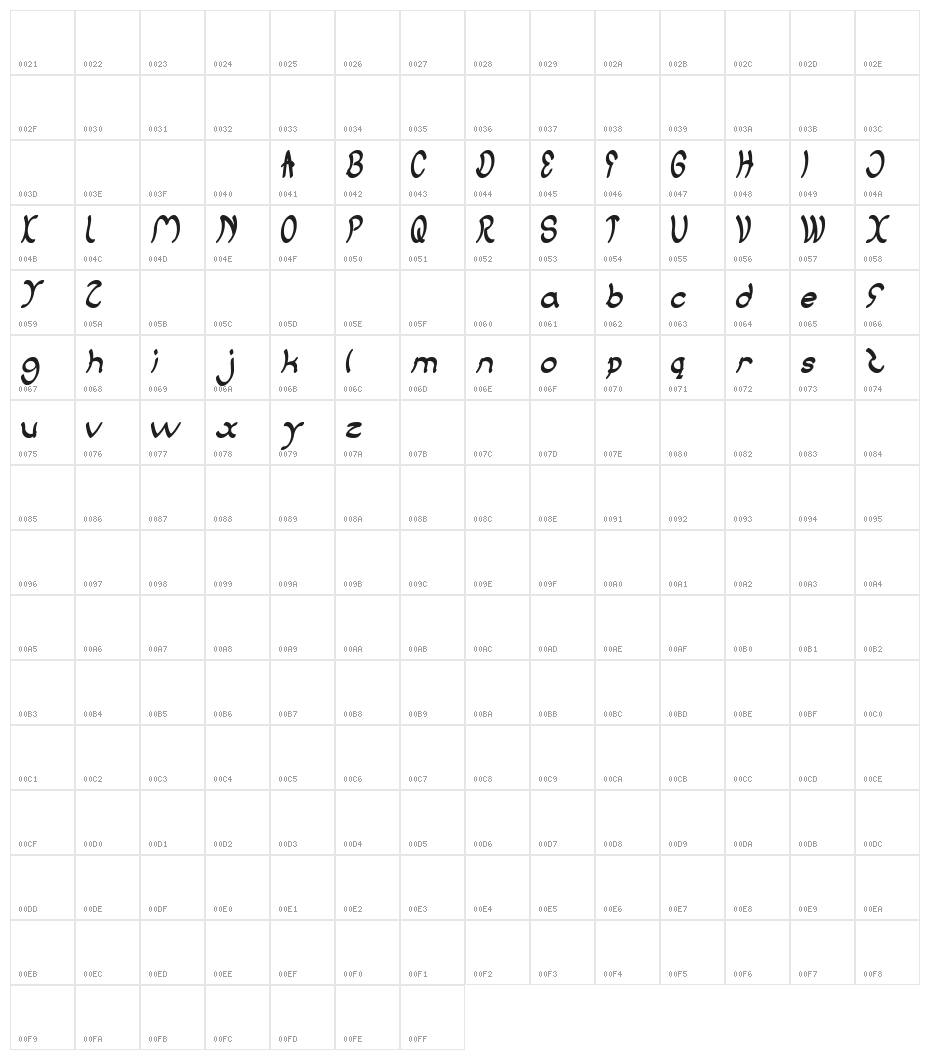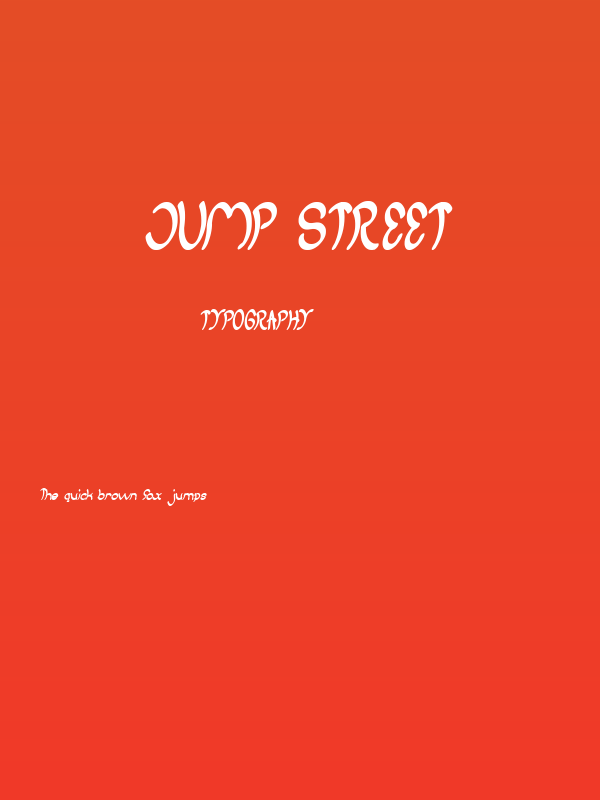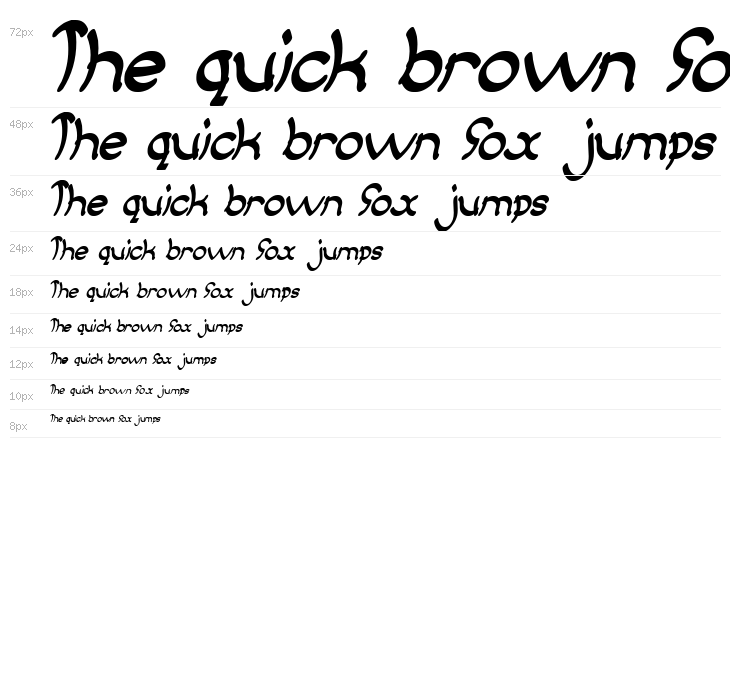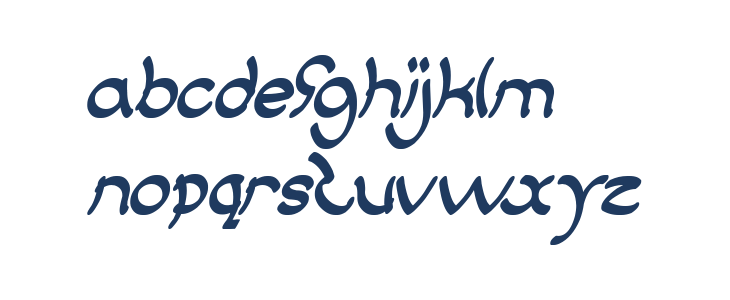
Jump Street Font
Jump Street Description
This font features a unique and playful style with a hand-drawn appearance. The characters are bold and exhibit a whimsical, flowing design that adds a sense of movement and energy. The strokes are thick and rounded, giving the font a friendly and approachable feel. Each letter has a distinct personality, with some characters featuring exaggerated curves and loops. This font is ideal for creative projects that require a touch of fun and originality. The overall look is both artistic and informal, making it suitable for a variety of applications.
| Overall Style | Playful, Artistic |
| Proposed Projects | Ideal for children's books, playful branding, creative posters, and artistic invitations. |